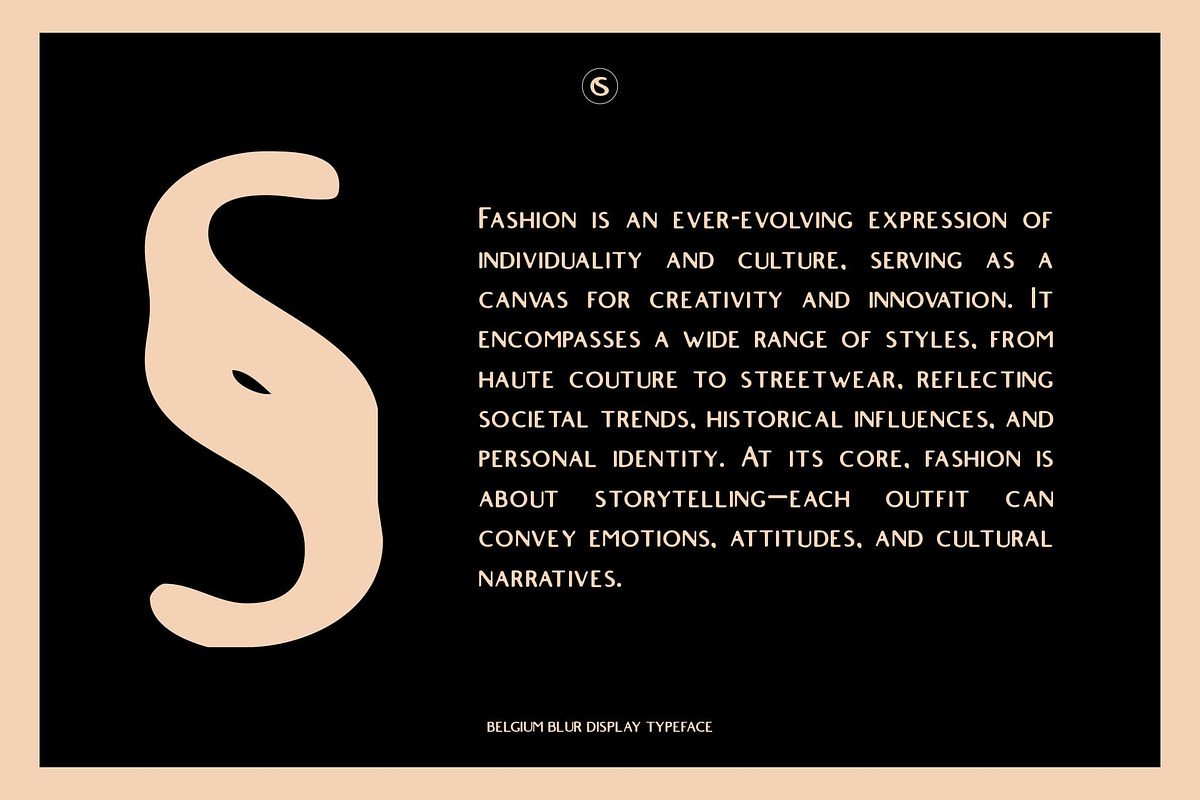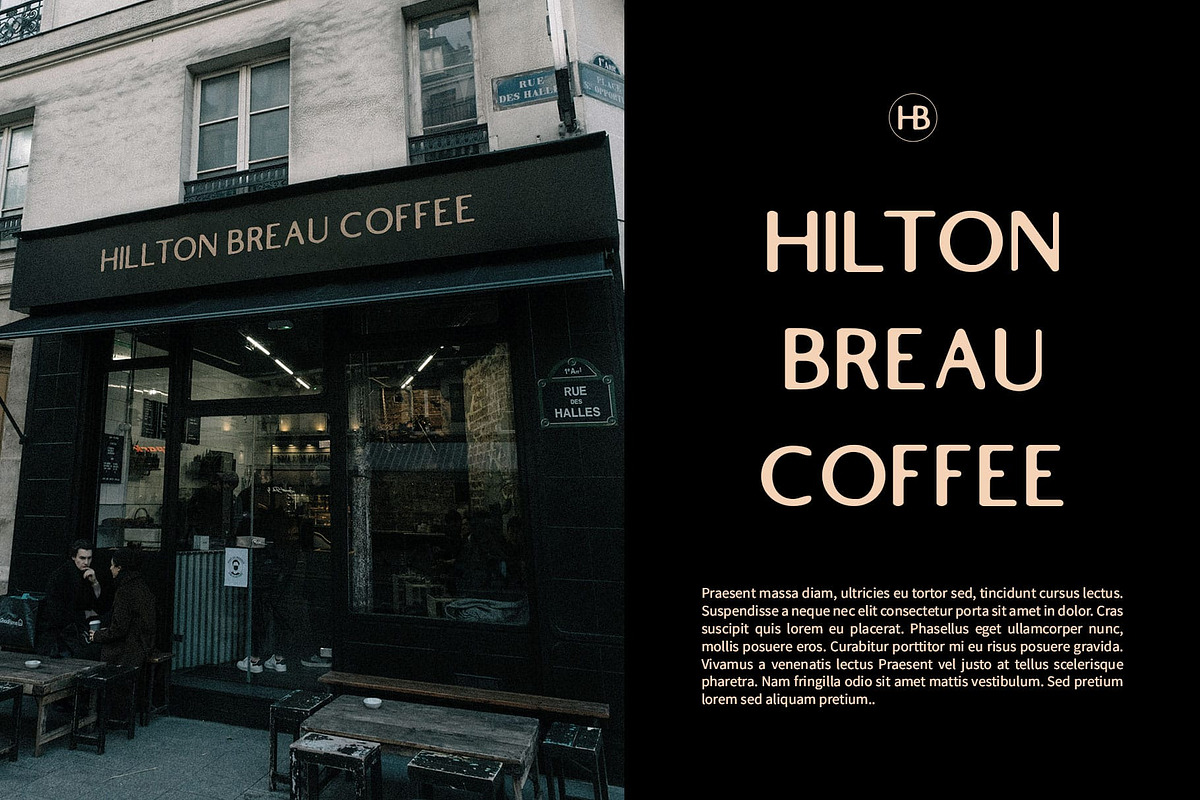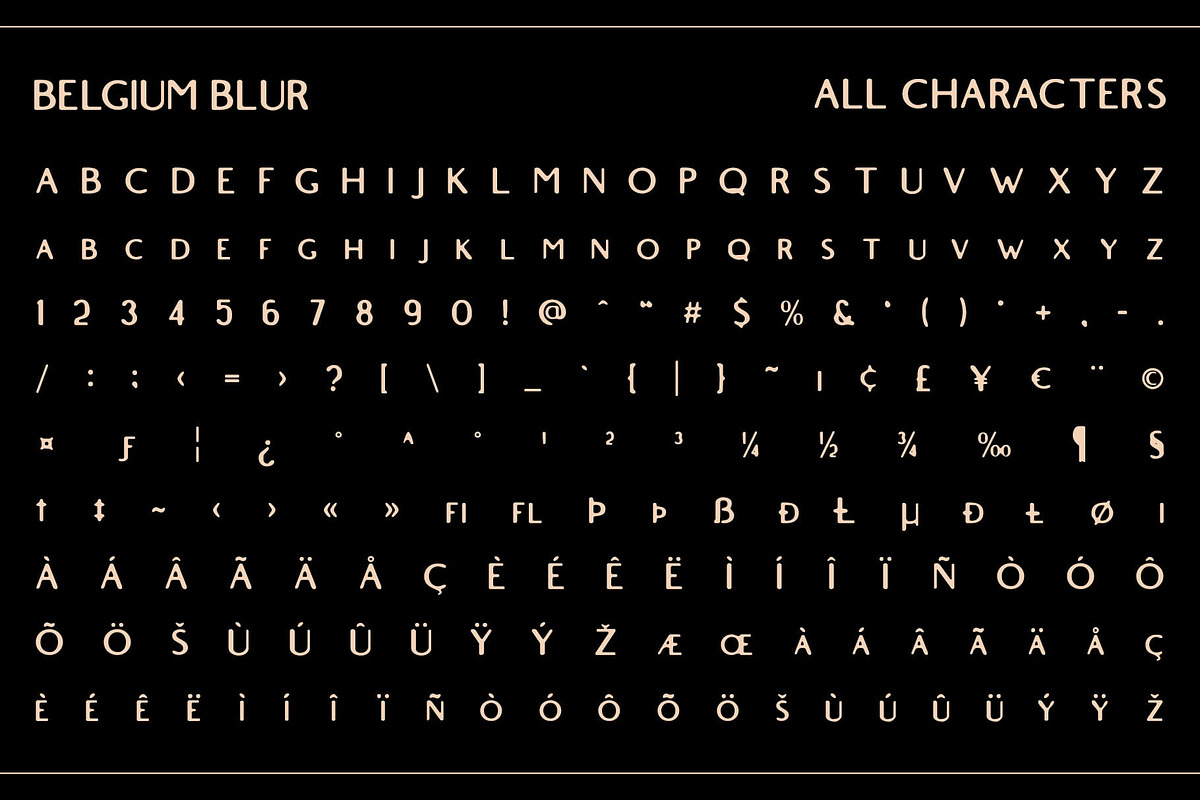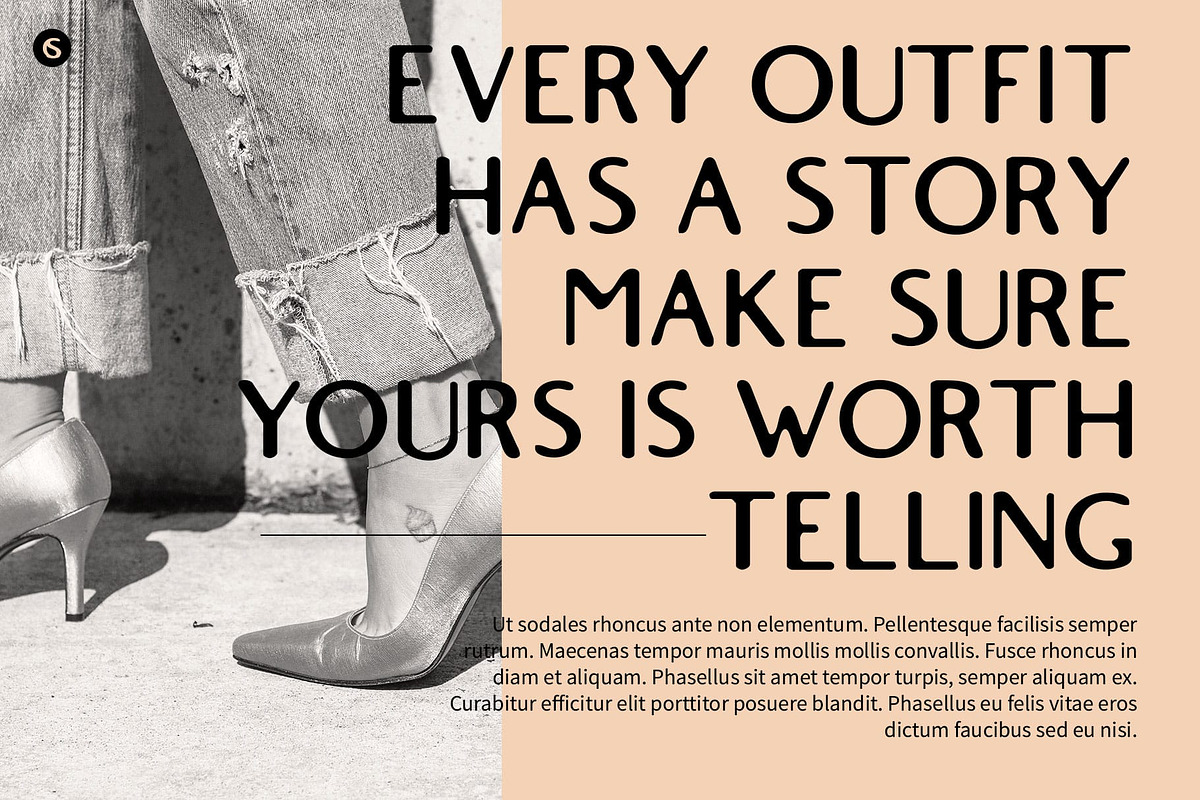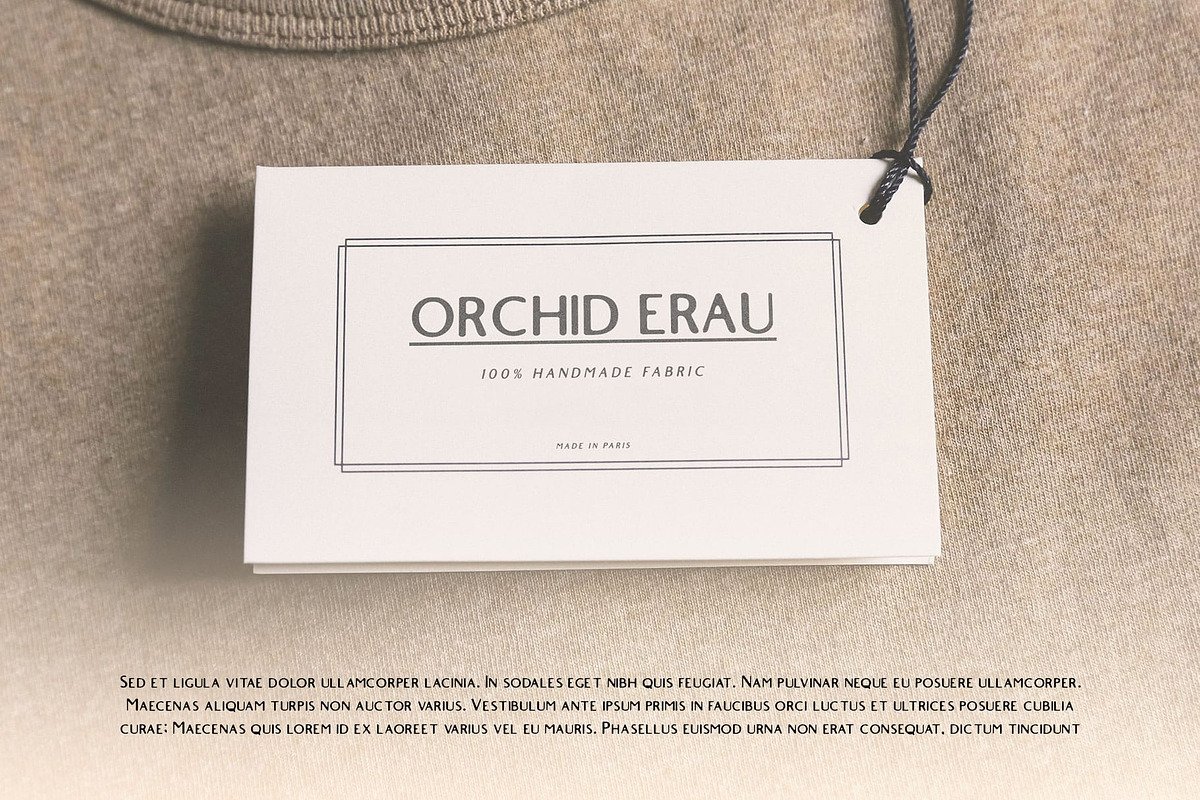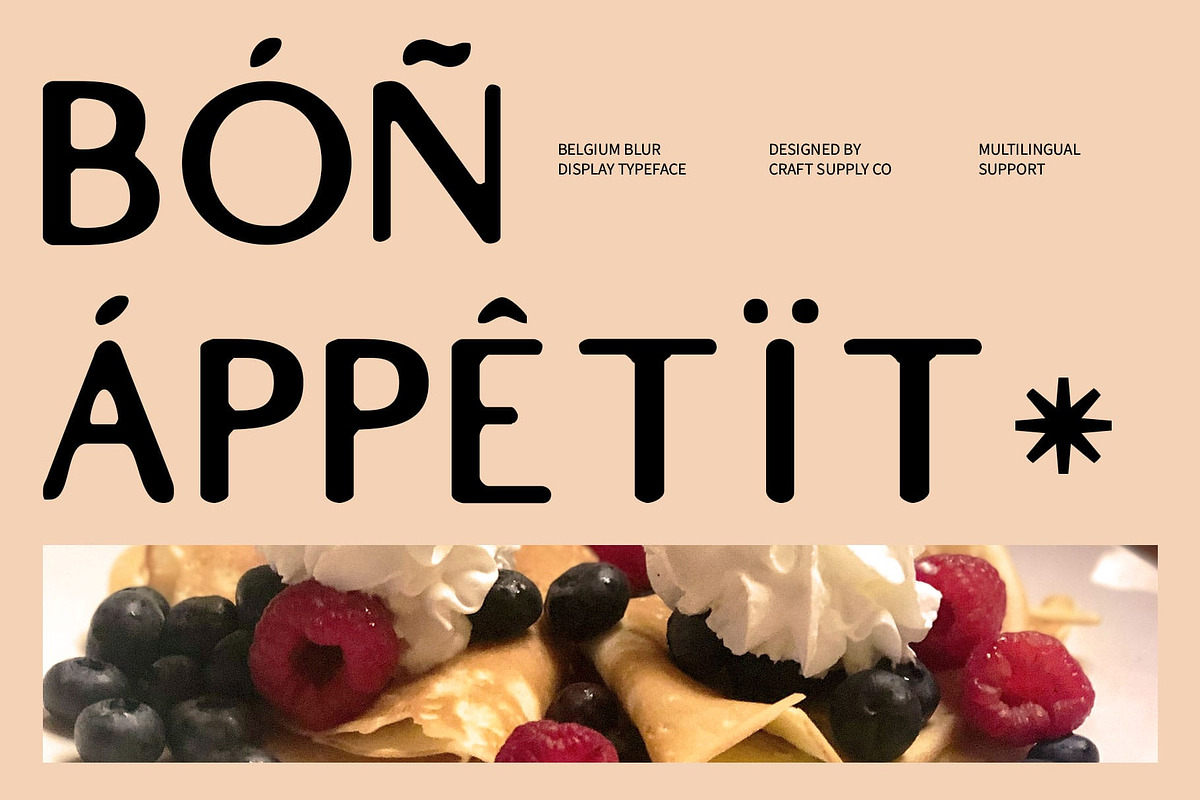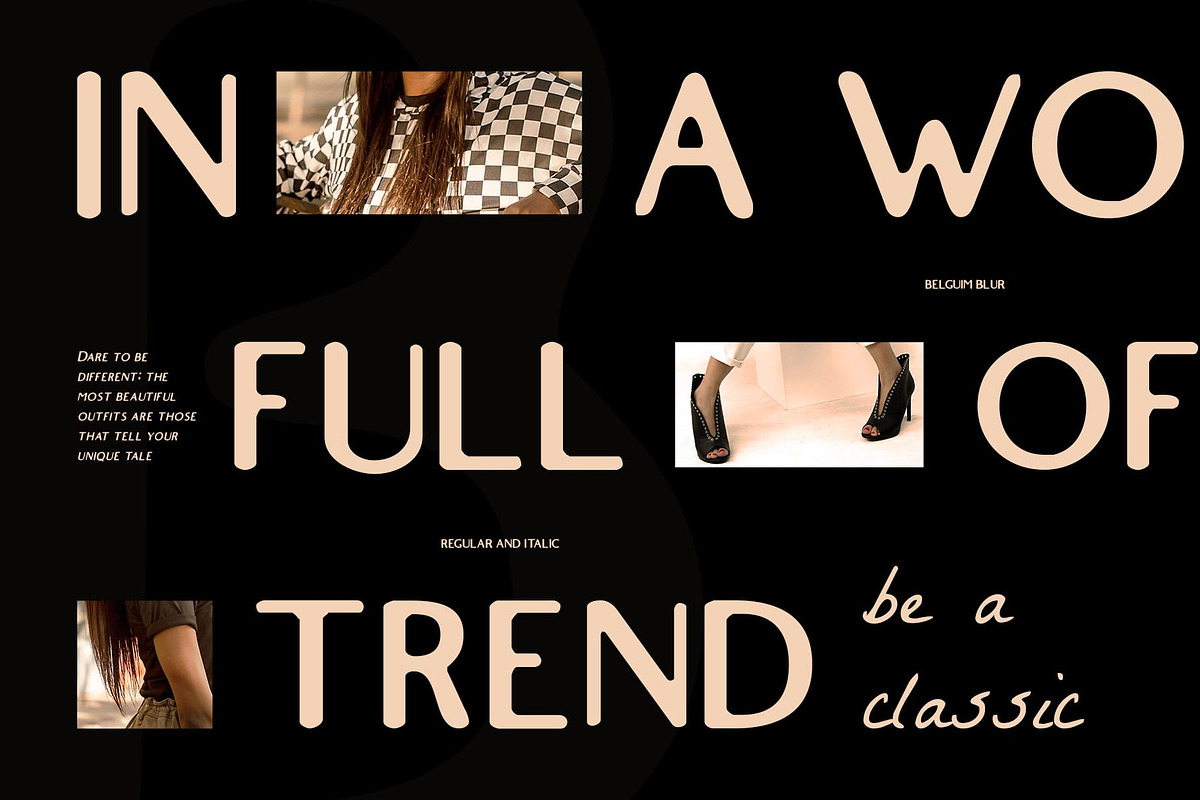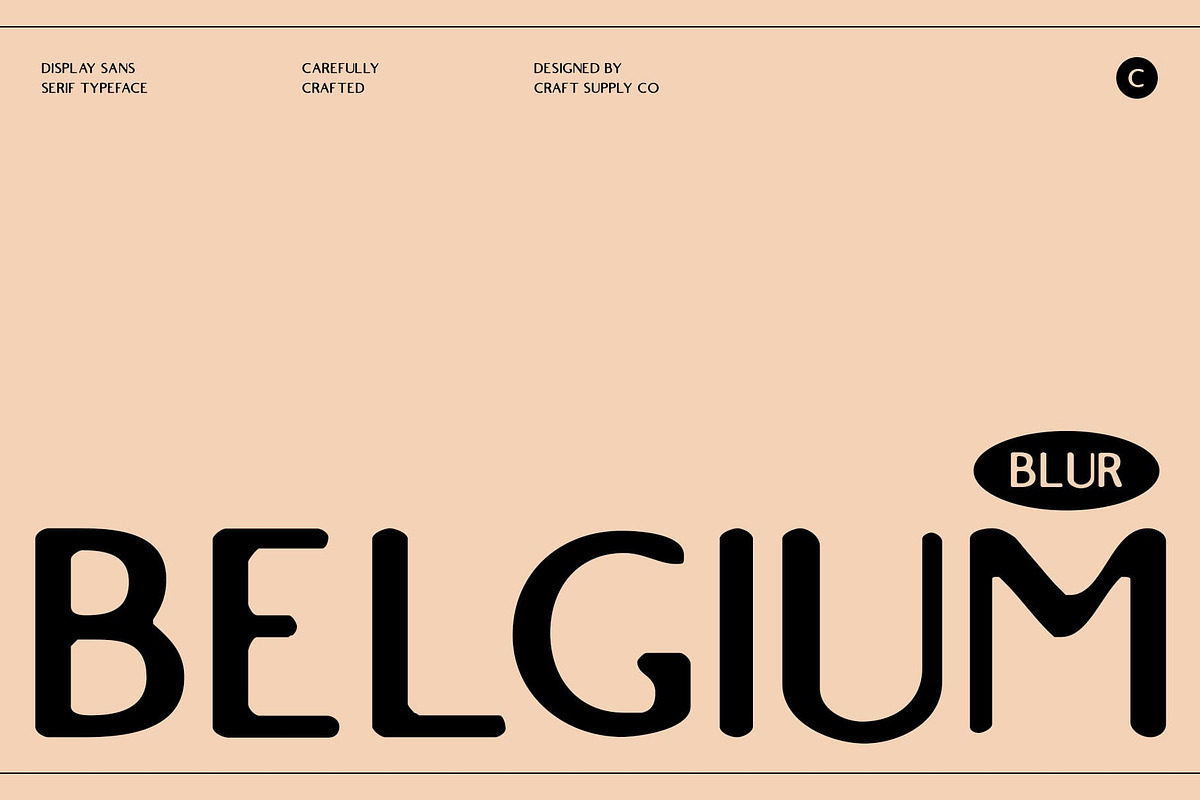
Belgium Blur
Belgium Blur Font: Modern Elegance with a Soft Touch
Modern Sans Serif Font with Clean Minimalist Shapes Belgium Blur is a modern sans serif font that features clean and minimalist shapes, offering a refined and sophisticated appearance. Its simple yet striking design exudes elegance, making it ideal for a variety of professional and stylish design applications. The font’s well-balanced proportions allow for seamless integration into any project, ensuring that it remains versatile across different mediums.
Subtle Blur Effect for Added Sophistication The subtle blur effect applied to Belgium Blur enhances its elegance by adding a soft, smooth quality that evokes a sense of contemporary sophistication. This unique touch creates visual depth and a delicate dynamism, allowing the font to maintain clarity while providing a refreshing twist. The blur not only enhances the aesthetic appeal but also invites a closer look, encouraging engagement from the audience.
Perfect for Professional and Stylish Designs Belgium Blur is highly suited for a wide range of applications, including branding, corporate materials, editorial layouts, and digital designs where a sleek and professional vibe is essential. Its versatility makes it perfect for creating compelling logos, impactful business cards, and eye-catching promotional materials. The font’s combination of clarity and softness makes it ideal for any design project aiming to convey a modern and polished image.